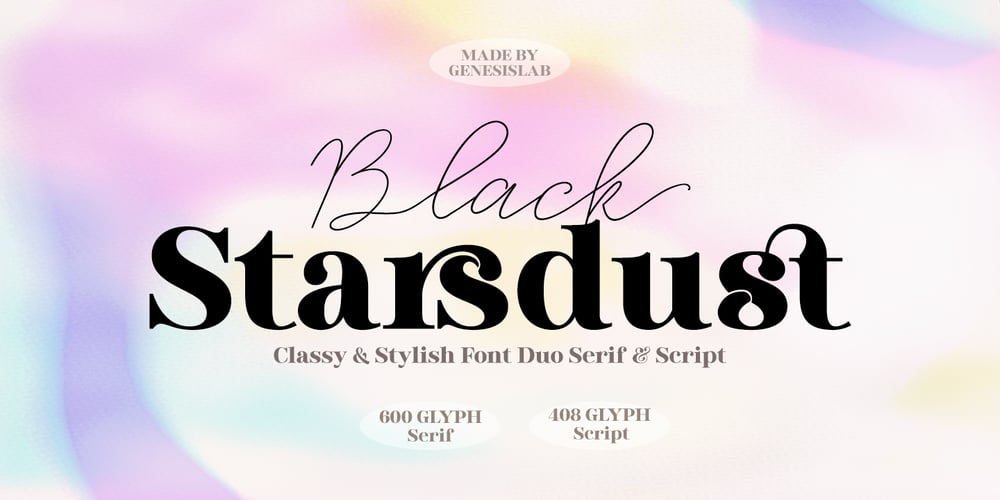
Black Starsdust
Black Starsdust font
Black Starsdust Font Family was designed by Bustami Harun and published by Genesislab. Black Starsdust contains 2 styles and family package options. Black Starsdut is a unique and modern combination serif typeface that is complemented by blend alternatives that give it a luxurious and unique style. This font is perfect for branding, logos, invitations, watermarks and more.The Black Starsdut font comes in a duo font style, thin script, and bold. Full Font including Upper & lower case, Ligature, discretionary, numbers, soup script, super script punctuation, Alternative Swash & Multilingual Support.If you have any questions, don’t hesitate to get in touch.thank you